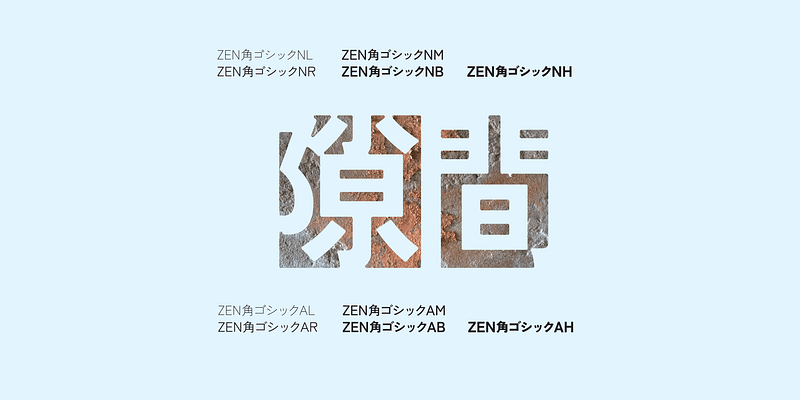
Zen Kaku Gothic Font Free Download is a modern Japanese sans-serif (Gothic) typeface designed for clarity, versatility, and contemporary appeal. With its clean strokes and geometric balance, this font is ideal for user interfaces, digital platforms, corporate branding, multilingual layouts, and editorial design that requires high legibility in both Japanese and Latin characters.
This typeface offers a neutral yet stylish look, making it a dependable choice for professional settings without feeling rigid or overly formal. Whether you're working on a tech product, signage system, or global design project, Zen Kaku Gothic Font Free Download provides a seamless reading experience across various sizes and screen types.
Zen Kaku Gothic stands out for its ability to bridge modern design sensibilities with typographic precision. It pairs well with serif or script fonts, and works effectively in both headline and body text roles, especially when clarity and accessibility are top priorities.